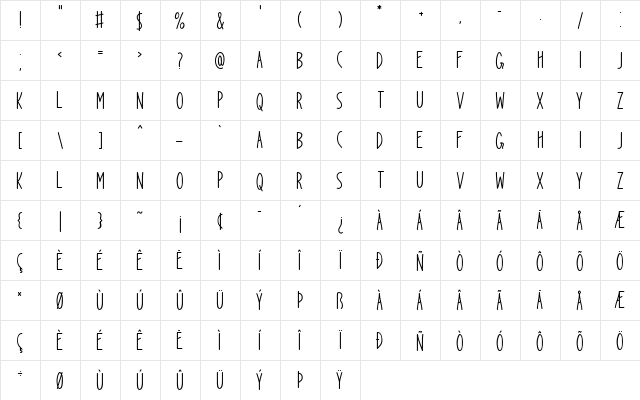
Spread Beauty Regular
Design Context for Spread Beauty Typeface
Spread Beauty takes a measured approach to typography — its balanced proportions and neutral character make it a reliable workhorse for both digital and print work.
Pro Tip: Use Spread Beauty in both headline and body roles to test its range before committing to a single application.